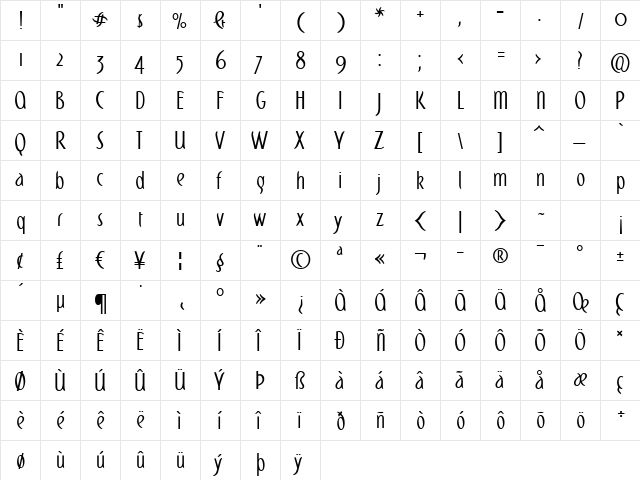
Domingo Regular
Design Context for Domingo Typeface
Domingo is a composed and adaptable typeface that performs quietly and consistently across a wide range of design contexts.